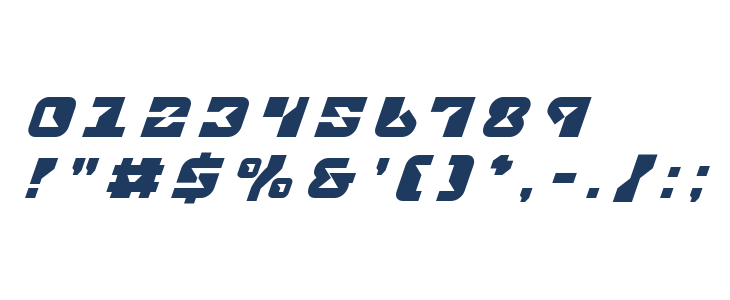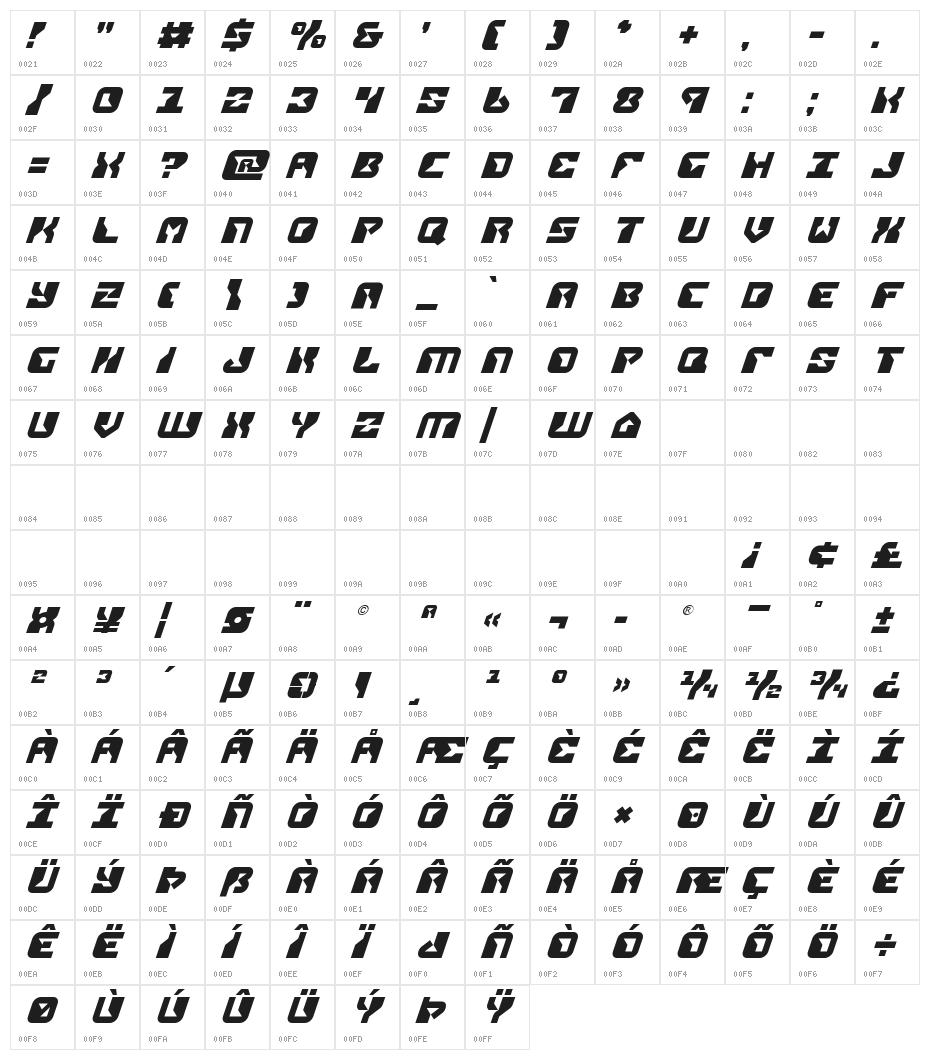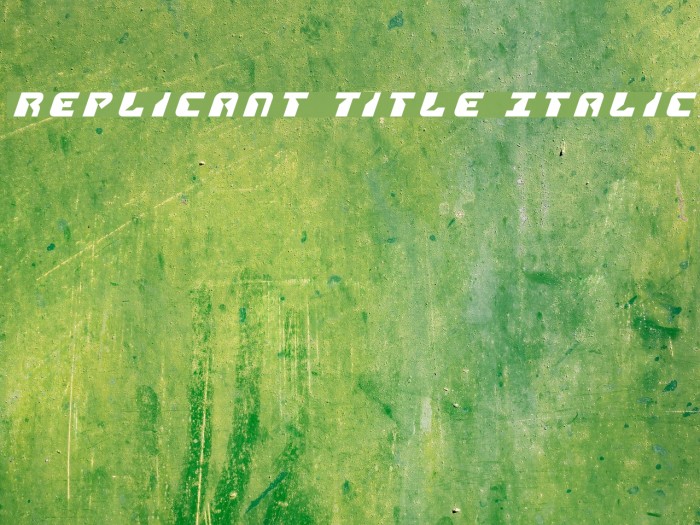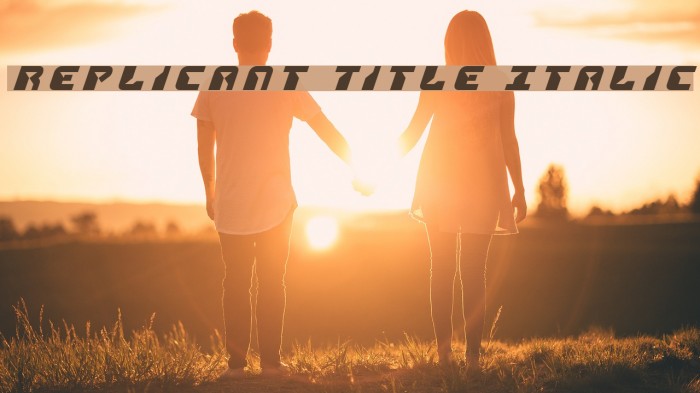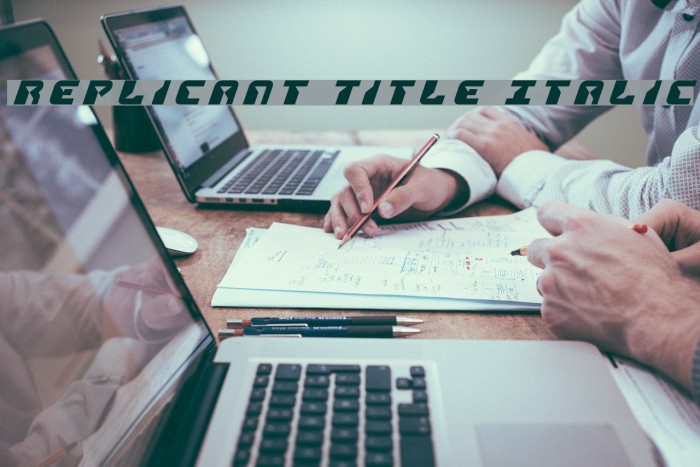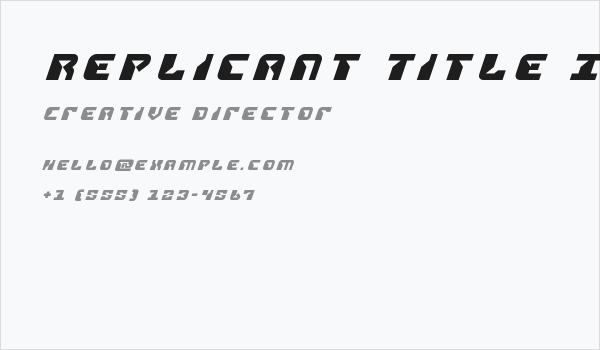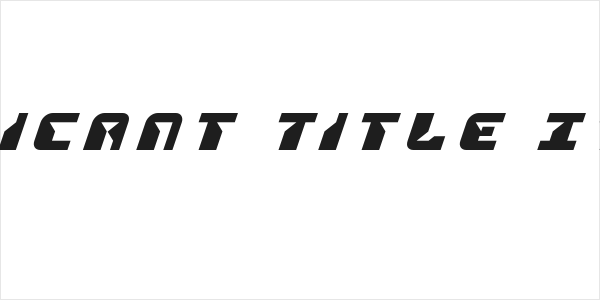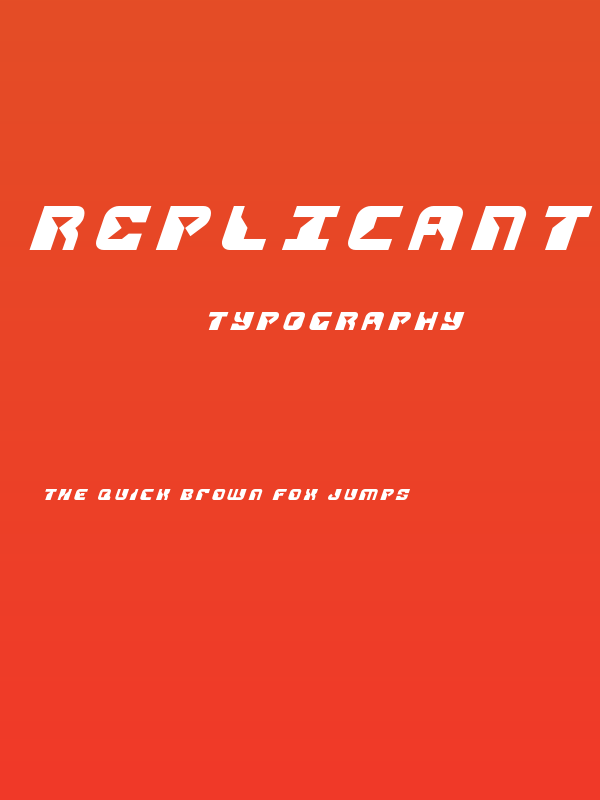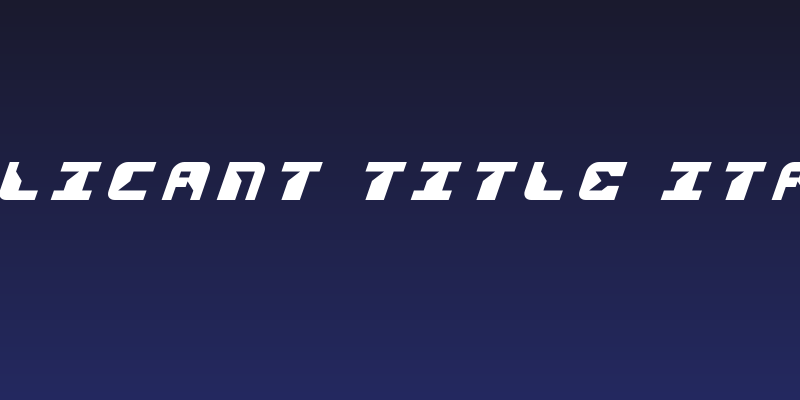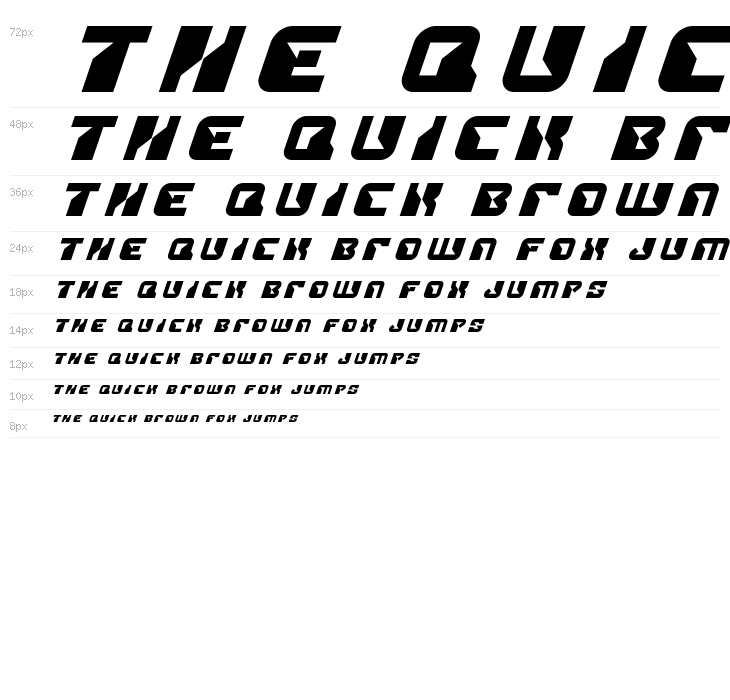
Replicant Title Italic Font
Replicant Title Italic Description
This font features a futuristic and angular design, characterized by sharp edges and a forward-leaning italic style. The uppercase and lowercase letters maintain a consistent geometric structure, with a bold presence that commands attention. The numbers and special characters are designed to match the overall aesthetic, providing a cohesive look across all elements. The font's unique style makes it suitable for projects that require a modern and edgy appearance, such as technology branding or sci-fi themed designs.
| Proposed Projects | Ideal for technology branding, sci-fi themed designs, video game titles, and modern advertising campaigns. |